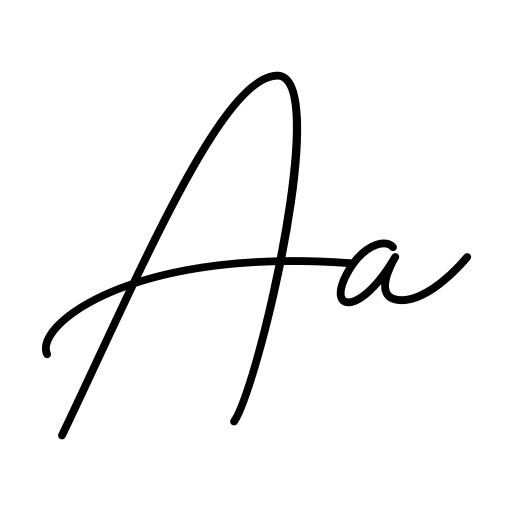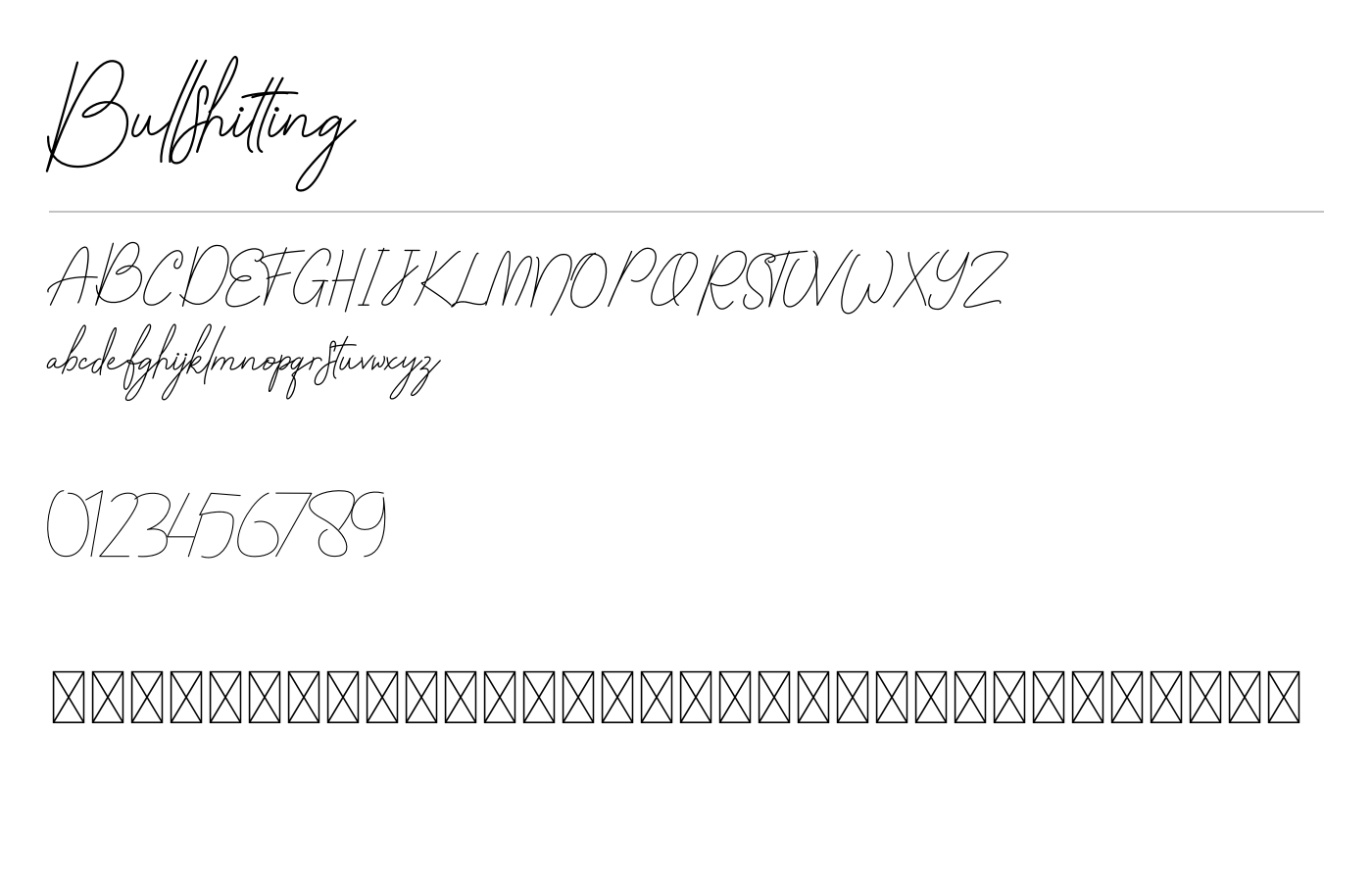
Bullshitting Font is an elegant, thin script typeface with a handwritten feel, featuring slender, flowing letterforms and smooth, natural curves. Its light weight and airy structure make it perfect for stylish, delicate designs that require a personal, sophisticated touch, ideal for invitations, branding, and fashion-related projects. This font works best in large sizes where its fine details and graceful strokes can shine.
Bullshitting Font
About Bullshitting Font
| Font family | Bullshitting Font |
| Designer | Fiqiart |